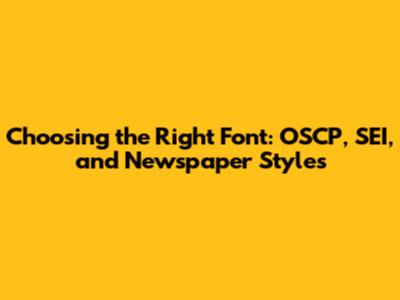
Choosing The Right Font: OSCP, SEI, And Newspaper Styles
Choosing the right font is crucial, especially when you're dealing with different contexts like the OSCP certification, SEI (Software Engineering Institute) standards, or designing a newspaper layout. The font you select can significantly impact readability, visual appeal, and the overall effectiveness of your communication. Let's dive into how to choose the best fonts for these specific scenarios.
Understanding Font Choices for OSCP
When preparing for the Offensive Security Certified Professional (OSCP) exam, the choice of font might seem trivial, but it can subtly affect your focus and comprehension. The OSCP is a challenging, hands-on penetration testing certification, and candidates spend countless hours reading documentation, writing reports, and analyzing code. Therefore, selecting a font that reduces eye strain and enhances readability is paramount. For code examples and terminal outputs, monospace fonts are generally preferred. These fonts ensure that each character occupies the same horizontal space, which is crucial for maintaining alignment and spotting errors in code. Popular monospace fonts include Consolas, Courier New, and Monaco. Consolas, for instance, is known for its clear distinction between similar characters like 'l' (lowercase L) and '1' (one), which can be incredibly helpful when you're sifting through lines of code under pressure.
For report writing, which forms a significant part of the OSCP exam, a clear and professional font is essential. While you might be tempted to use fancy or decorative fonts, sticking to classic, readable fonts like Times New Roman, Arial, or Calibri is generally a safer bet. These fonts are widely recognized and easy to read, ensuring that your report is taken seriously and that the focus remains on the content rather than the aesthetics. Using a serif font like Times New Roman can give your report a more formal and academic feel, while sans-serif fonts like Arial or Calibri offer a cleaner, more modern look. Whichever you choose, consistency is key. Use the same font throughout your report to maintain a professional appearance. Beyond the font itself, pay attention to font size and spacing. A font size of 12 points is generally considered standard for report writing, and using single or 1.15 line spacing can improve readability without making the document too lengthy. Remember, the goal is to present your findings in a clear, concise, and professional manner, and the right font can go a long way in achieving that.
SEI (Software Engineering Institute) Standards and Font Selection
The Software Engineering Institute (SEI) sets standards and guidelines for software development and engineering practices. When creating documentation, reports, or presentations that adhere to SEI standards, selecting the right font is vital for maintaining professionalism and clarity. SEI documents often involve technical information, complex diagrams, and detailed explanations, so readability is a top priority. Similar to OSCP report writing, sticking to classic and widely accepted fonts is advisable. Fonts like Arial, Calibri, Times New Roman, and Helvetica are all excellent choices. These fonts are known for their legibility and are generally considered safe options for professional documents. When choosing a font, consider the overall tone and purpose of your document. If you're creating a formal report, a serif font like Times New Roman might be appropriate. If you're designing a presentation, a sans-serif font like Arial or Helvetica could provide a cleaner, more modern look. Consistency is key in SEI documentation. Use the same font consistently throughout the document to maintain a professional appearance and avoid distracting the reader. Be sure to use headings, subheadings, and bullet points to break up large blocks of text and make the document easier to scan. Proper use of white space can also improve readability. Furthermore, pay attention to font size and line spacing. A font size of 12 points is generally recommended for body text, and using single or 1.15 line spacing can enhance readability. When incorporating code snippets or technical terms, consider using a monospace font like Courier New or Consolas to ensure proper alignment and clarity. However, use these fonts sparingly and only when necessary, as they can be less readable for large blocks of text. The goal is to create documents that are easy to understand, professional in appearance, and compliant with SEI standards. By carefully selecting your fonts and paying attention to formatting details, you can achieve that goal.
Newspaper Fonts: A Matter of Readability
When it comes to newspaper fonts, the primary goal is readability, especially given the large volume of text and the diverse audience. Newspapers typically use a combination of serif and sans-serif fonts to create a visually appealing and easy-to-read layout. Headlines often feature bold, sans-serif fonts to grab the reader's attention, while the body text usually employs serif fonts for enhanced readability. Common serif fonts used in newspapers include Times New Roman, Georgia, and Century Schoolbook. These fonts have serifs, the small strokes at the ends of characters, which help guide the reader's eye along the line of text and improve readability, particularly in long articles. For headlines, sans-serif fonts like Arial, Helvetica, and Franklin Gothic are frequently used. These fonts have a clean, modern look and are effective at catching the reader's eye. The choice of font size is also crucial in newspaper design. Body text typically ranges from 9 to 12 points, depending on the font and the overall layout. Headlines can vary in size depending on their importance and placement on the page. Leading, or the spacing between lines of text, is another important consideration. Adequate leading improves readability by preventing lines of text from appearing too crowded. Newspapers also use a variety of design elements, such as columns, images, and captions, to break up the text and make the page more visually appealing. Captions, which provide context for images, often use a smaller font size than the body text but should still be legible. The overall design of a newspaper aims to balance readability, visual appeal, and information density. By carefully selecting fonts and formatting text, newspapers can effectively convey information to a broad audience and maintain reader engagement. The principles of newspaper font selection can also be applied to other types of publications, such as magazines, newsletters, and websites, where readability and visual appeal are important considerations.
Contrasting Serif and Sans-Serif Fonts
Understanding the difference between serif and sans-serif fonts is fundamental to making informed font choices for any project, whether it's preparing for the OSCP, adhering to SEI standards, or designing a newspaper layout. Serif fonts are characterized by the small decorative strokes, or serifs, at the ends of the letters. These serifs are thought to help guide the eye along the line of text, making serif fonts generally more readable for long blocks of text. Common serif fonts include Times New Roman, Garamond, and Georgia. They often convey a sense of tradition, formality, and authority, making them suitable for academic papers, books, and formal reports.
Sans-serif fonts, on the other hand, lack these decorative strokes and have a cleaner, more modern appearance. They tend to be more legible on screens, making them a popular choice for websites, mobile apps, and presentations. Common sans-serif fonts include Arial, Helvetica, and Verdana. They often convey a sense of simplicity, clarity, and modernity, making them suitable for headlines, captions, and shorter blocks of text. The choice between serif and sans-serif fonts depends on the specific context and the desired effect. For instance, in a newspaper, serif fonts are typically used for the body text to enhance readability, while sans-serif fonts are used for headlines to grab the reader's attention. In a digital environment, sans-serif fonts are often preferred for body text due to their legibility on screens. When preparing for the OSCP, you might use a serif font for your report to give it a formal and professional look, and a monospace font for code snippets to ensure proper alignment. When adhering to SEI standards, the choice of font might depend on the specific document and the organization's branding guidelines. Ultimately, the best font is one that is easy to read, visually appealing, and appropriate for the intended purpose. Experiment with different fonts and consider the overall design to create a cohesive and effective communication.
Monospace Fonts and Their Role
Monospace fonts are unique in that each character occupies the same amount of horizontal space. This characteristic makes them particularly well-suited for displaying code, terminal outputs, and other situations where alignment is critical. Unlike proportional fonts, where the width of each character varies, monospace fonts ensure that characters line up perfectly, making it easier to spot errors and maintain consistency. For instance, when writing code, using a monospace font like Consolas, Courier New, or Monaco can help you quickly identify syntax errors and ensure that your code is properly formatted. The uniform character width makes it easier to see indentation levels and alignment, which are crucial for code readability. In terminal emulators, monospace fonts are essential for displaying command outputs and input commands accurately. The fixed-width characters ensure that columns of text line up correctly, making it easier to parse information and identify patterns. While monospace fonts are invaluable for coding and terminal work, they are generally less readable for long blocks of text. The uniform character width can make the text appear monotonous and less visually appealing, which can lead to eye strain and reduced comprehension. Therefore, monospace fonts are typically used sparingly and only when their unique characteristics are required. When preparing for the OSCP, you'll likely use a monospace font for displaying code examples and terminal outputs in your report, but you'll want to use a more readable font like Times New Roman or Arial for the main body of the text. When adhering to SEI standards, you might use a monospace font for code snippets or technical terms, but you'll want to use a standard font for the rest of the document to maintain readability and professionalism. The key is to use monospace fonts strategically and only when their benefits outweigh their limitations.
Font Size, Spacing, and Readability
Beyond the specific font you choose, font size and spacing play a crucial role in overall readability. The appropriate font size depends on the font itself, the context in which it's being used, and the intended audience. Generally, a font size of 12 points is considered standard for body text in documents and reports. However, smaller font sizes may be appropriate for captions, footnotes, or other supplementary text. Larger font sizes can be used for headings and subheadings to create visual hierarchy and guide the reader through the document. Spacing, or leading, refers to the vertical space between lines of text. Adequate spacing is essential for readability, as it prevents lines of text from appearing too crowded and allows the reader's eye to easily follow the text. Single spacing is often used in formal documents, but 1.15 or 1.5 spacing can improve readability, particularly for longer blocks of text. Kerning, which is the spacing between individual characters, can also affect readability. Some fonts have better kerning than others, and adjusting the kerning can improve the overall appearance of the text. When choosing a font size and spacing, it's important to consider the target audience. If you're writing for an audience with visual impairments, you may need to use a larger font size and wider spacing to accommodate their needs. Similarly, if you're designing a website, you'll want to choose a font size and spacing that are easy to read on screens of different sizes and resolutions. When preparing for the OSCP, pay attention to font size and spacing in your report to ensure that it is easy to read and professionally presented. When adhering to SEI standards, follow any specific guidelines regarding font size and spacing to maintain consistency and compliance. Remember, the goal is to create documents that are accessible, readable, and visually appealing to the intended audience.
Conclusion
In summary, selecting the right font is a critical aspect of effective communication, whether you're preparing for the OSCP, adhering to SEI standards, or designing a newspaper layout. Consider the context, purpose, and audience when making your font choices. Stick to classic, readable fonts for body text, and use bold, sans-serif fonts for headlines to grab attention. Pay attention to font size, spacing, and kerning to ensure optimal readability. Monospace fonts are invaluable for displaying code and terminal outputs, but use them sparingly for long blocks of text. By understanding the nuances of font selection, you can create documents that are visually appealing, easy to read, and effective in conveying your message. Guys, always remember that the right font can make a significant difference in how your work is perceived and understood, so choose wisely!